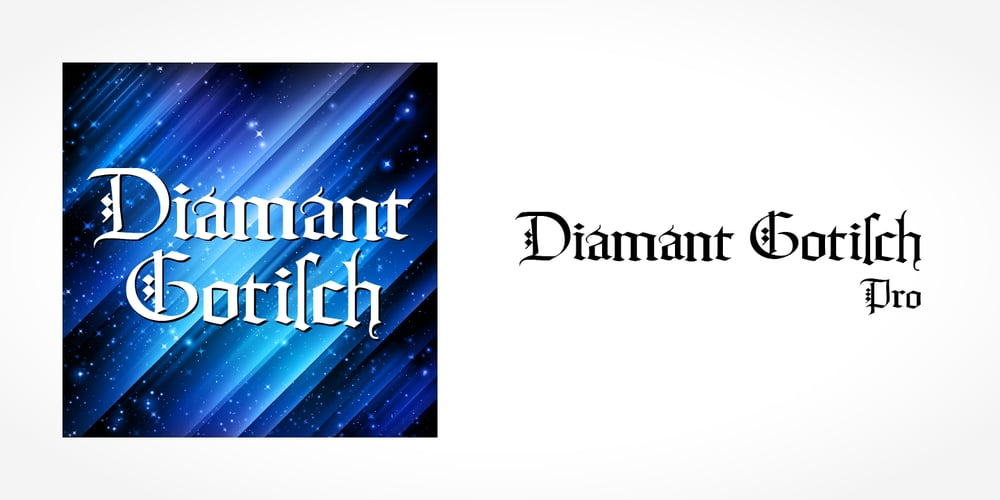
Diamant Gotisch Pro
Diamant Gotisch Pro Font Family was designed by published by SoftMaker. Diamant Gotisch Pro contains 1 styles and family package options. Blackletter is the classic “German” printing type. Starting in the 16th century and lasting well into the 20th century, most works in Germany were printed using blackletter types. Today, blackletter fonts are mainly used decoratively. If you want to communicate a feeling of old-world quality or nostalgia, blackletter fonts are the preferred choice – use them on signs, in brochures or on invitation cards. Diamant Gotisch Pro is a classic blackletter font of its epoch which inspires you to create vintage-looking designs with ease.